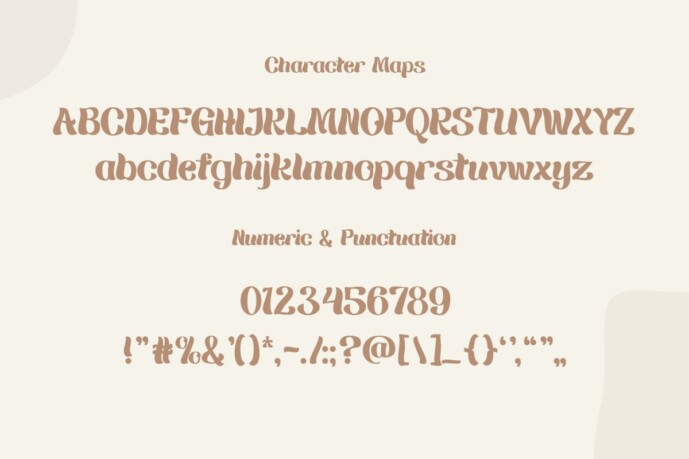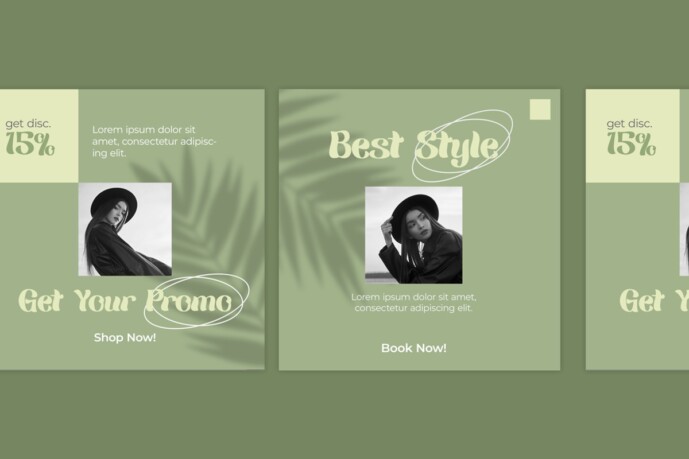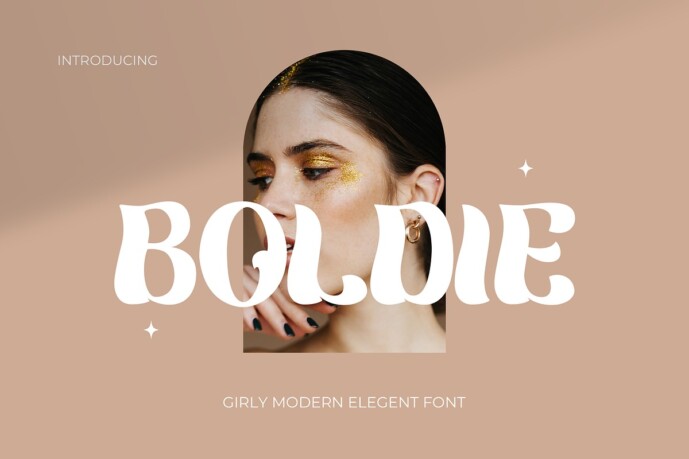
Boldie Display Font
Designer: Pinisi ART
Boldie Display Font, a perfect blend of fresh girly charm and captivating modern elegance. Every stroke of its letters is adorned with delicate details, bringing forth a sense of softness, while its bold lines add a touch of daring yet refined allure. Ideal for various design needs, from crafting striking logos to creating awe-inspiring posters, Boldie Font promises luxury and uniqueness in every project. Whether you’re aiming for sophistication or a trendy appeal, let Boldie Font elevate your designs with its unparalleled charm and versatility.